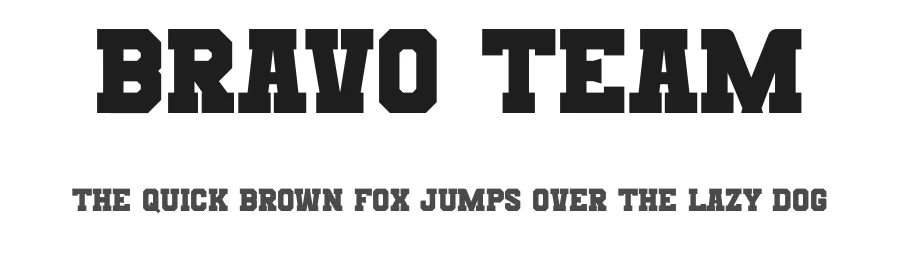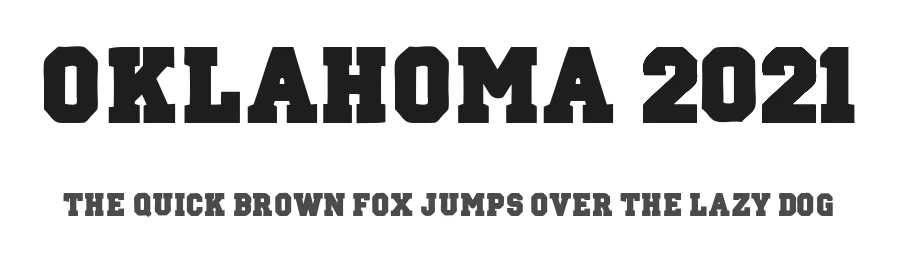
About University Font
University is a decorative font designed by Geronimo Font Studios. It includes 79 glyphs, a medium weight, OTF (CFF) format, and 105 languages. University is free to download; check the license details on this page before commercial use. Decorative fonts like University work best for logos, posters, packaging, and standout headlines.
University Font is a decorative font that shines as a display or heading face. Pair it with a clean sans-serif or serif font for body text β the contrast creates a clear hierarchy while the two styles stay balanced and easy to read.